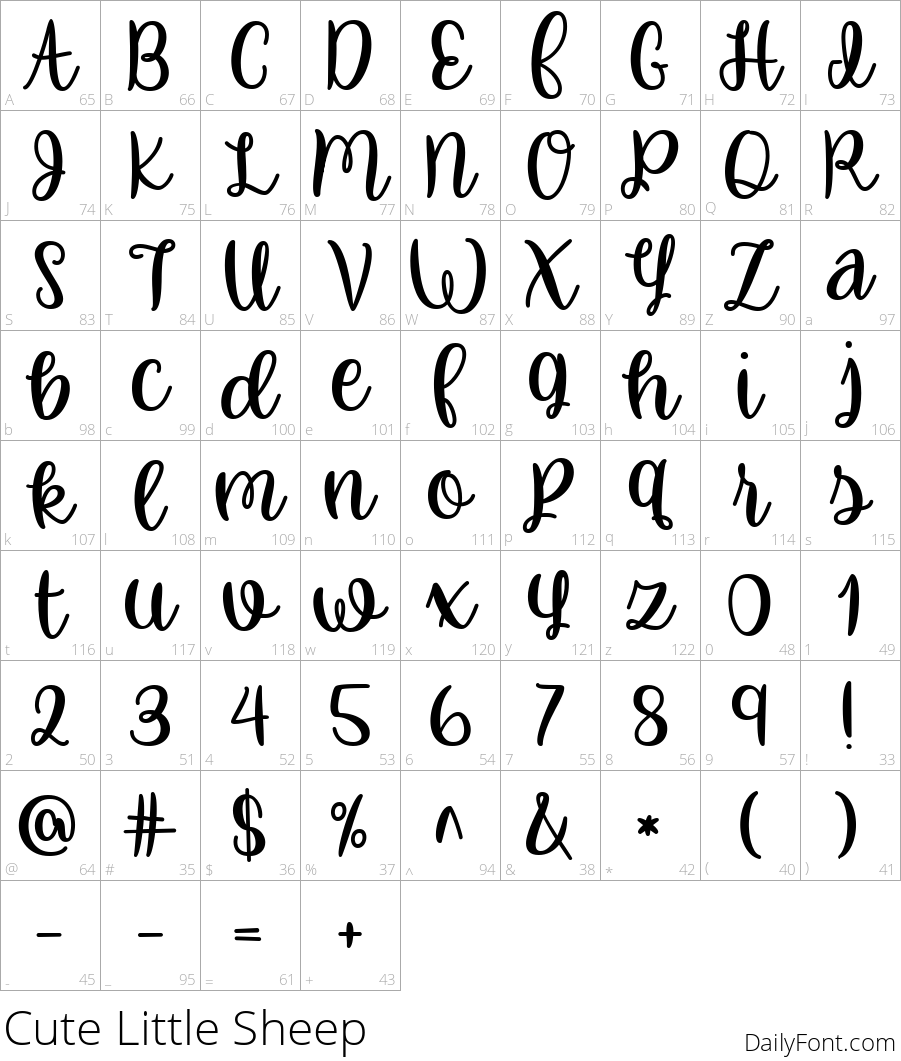
Cute Little Sheep
Cute Little Sheep by Misti's Fonts is a delightful heavy script font that exudes charm and playful elegance. Its bold and curvaceous letters are designed to capture attention, making it ideal for a variety of creative projects. Each character is plump and generously rounded, offering a sense of warmth and friendliness that is perfect for children's books, greeting cards, playful branding, and more.
One of the standout features of Cute Little Sheep is its whimsical and inviting character shapes. The exaggerated curves and gentle slopes give the font a sense of fluidity and dynamism. The capital letters are particularly striking, with their pronounced loops and unique flourishes, while the lowercase letters maintain a consistent, harmonious design throughout. This consistency makes Cute Little Sheep highly readable, despite its decorative nature.
The numbers in this font follow the same design ethos, providing a coherent look across all text elements. Their rotund and playful appearance ensures they integrate seamlessly with the alphabetic characters, maintaining the overall whimsical aesthetic. Punctuation marks and special characters are created with the same attention to detail, ensuring that every aspect of your text appears cohesive and engaging.
The overall thickness and weight of Cute Little Sheep give it a substantial presence, guaranteeing that your message stands out whether used in print or digital formats. Its playful yet sophisticated design ensures versatility, making it suitable for both casual and more refined applications. The font's unique character and heavy script style promise to infuse any project with a spirited and heartwarming flair.